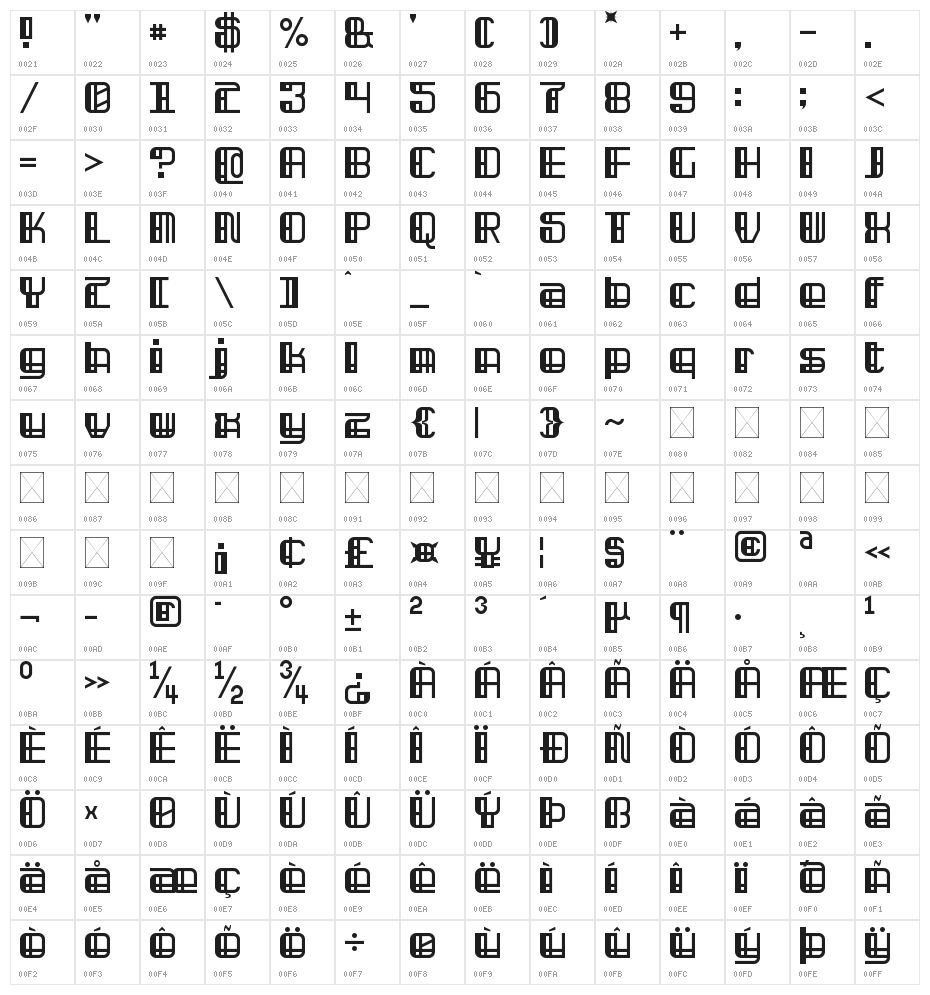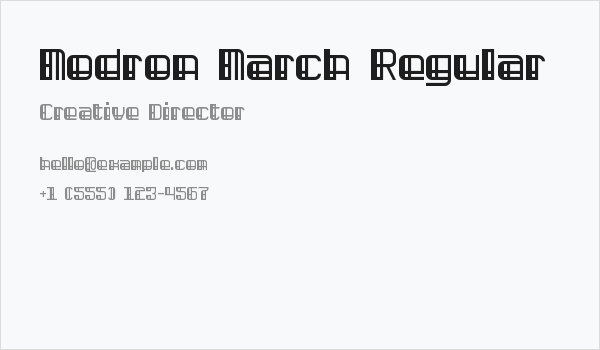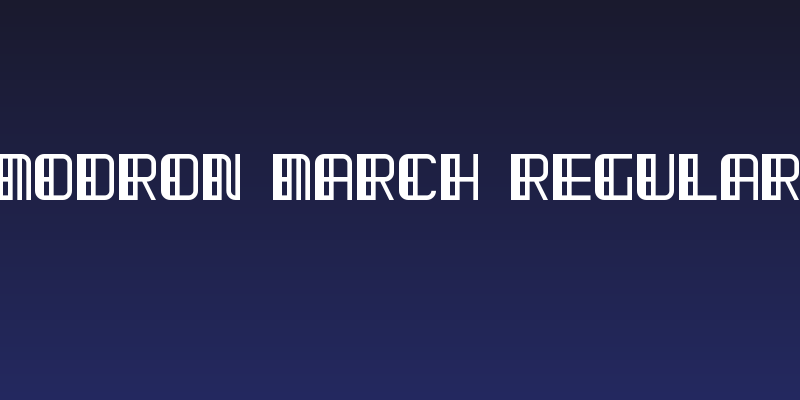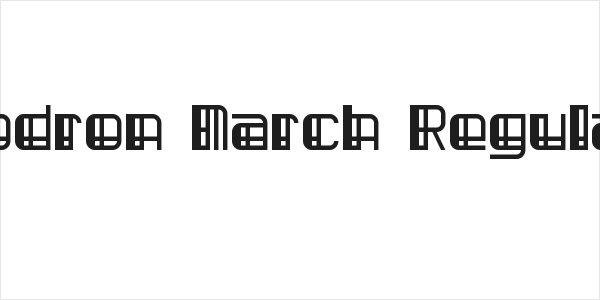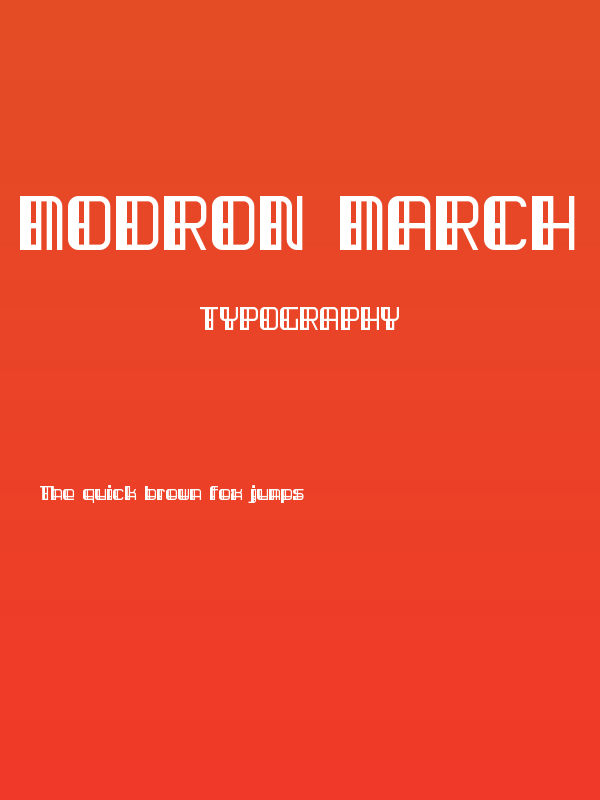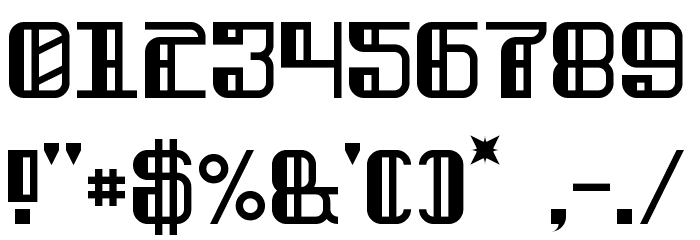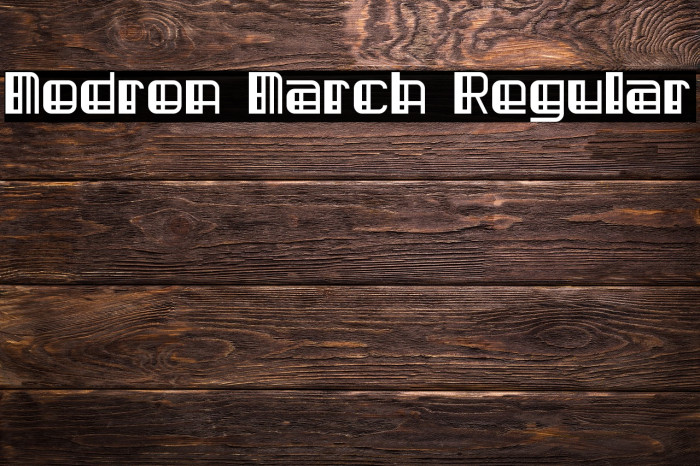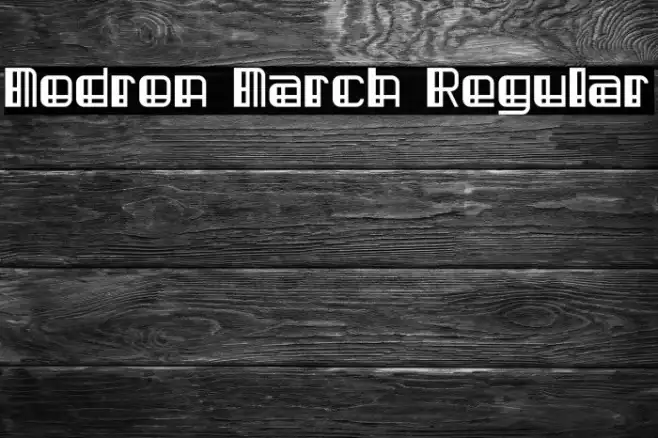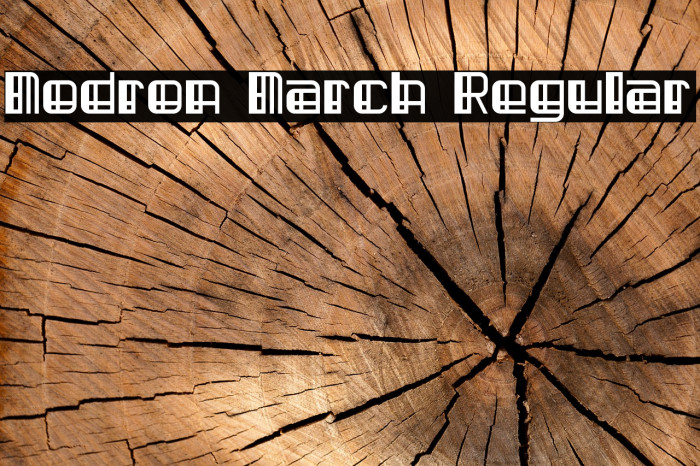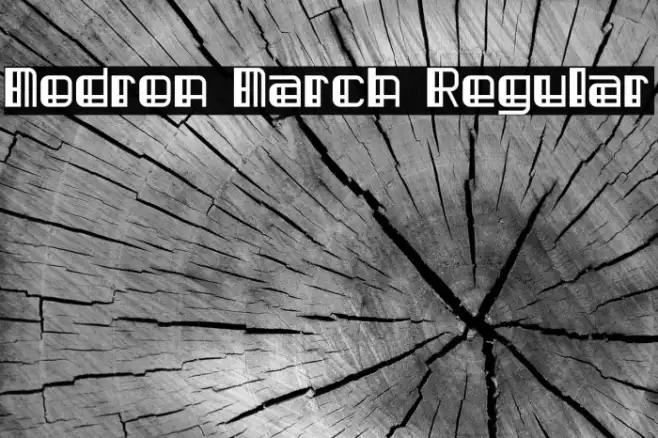
Modron March Regular Font
Modron March Regular Description
This font exhibits a modern, geometric style with a unique blend of sharp angles and rounded elements. The uppercase letters are bold and structured, featuring a distinct grid-like pattern that adds a futuristic touch. The lowercase letters maintain this geometric aesthetic, offering a cohesive look across different cases. Numbers are equally bold and follow the same design principles, ensuring consistency throughout. Special characters are crafted with the same attention to detail, making them stand out while remaining harmonious with the rest of the font. The overall appearance is striking and memorable, suitable for projects that require a contemporary and innovative feel.
| Proposed Projects | Ideal for technology branding, modern advertising campaigns, innovative product packaging, and futuristic-themed designs. |